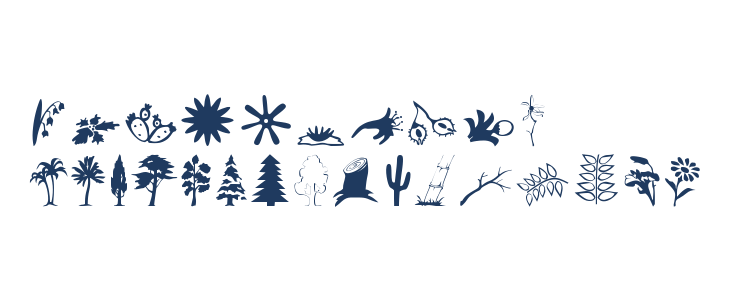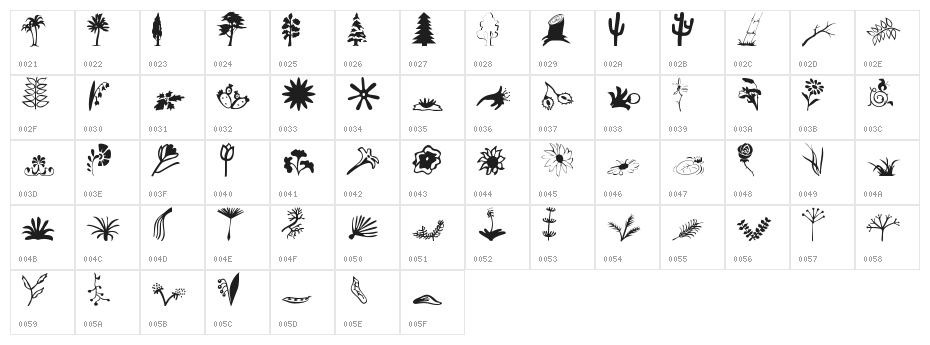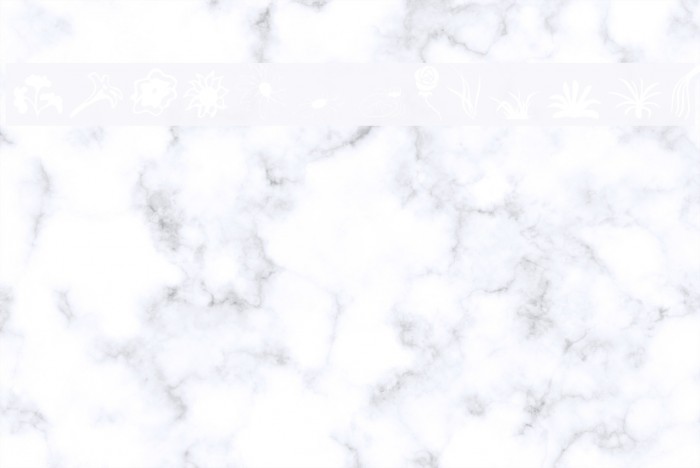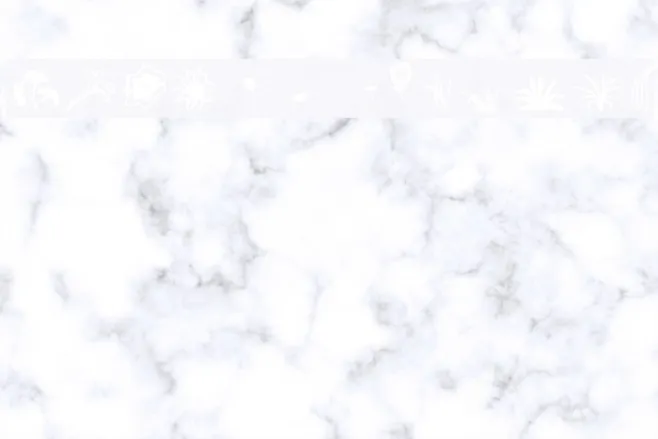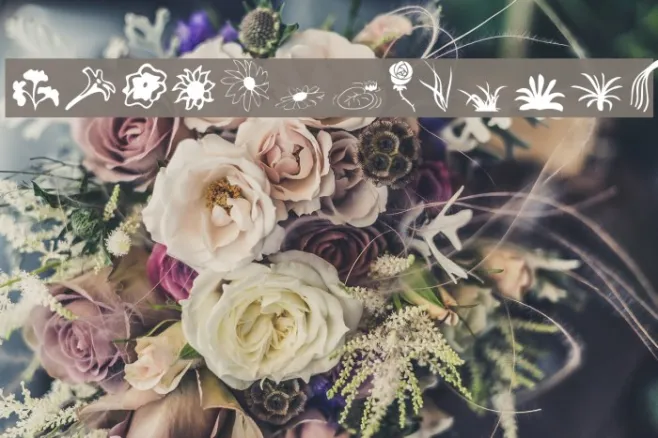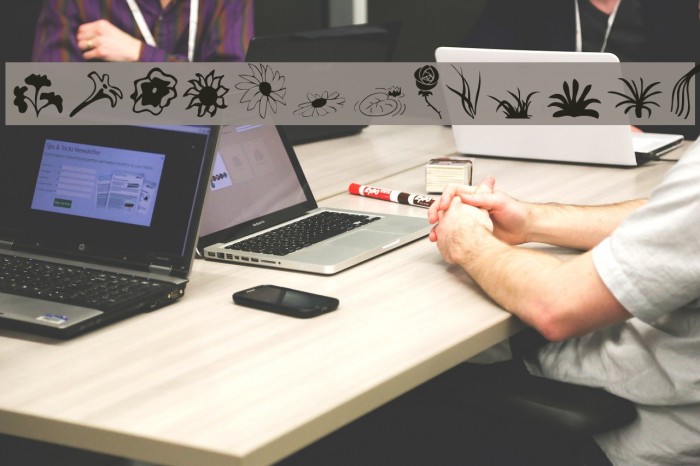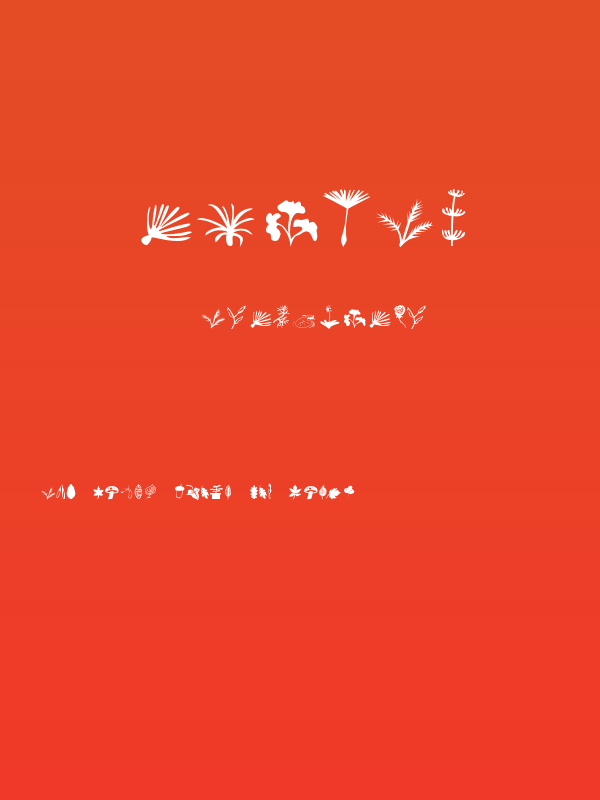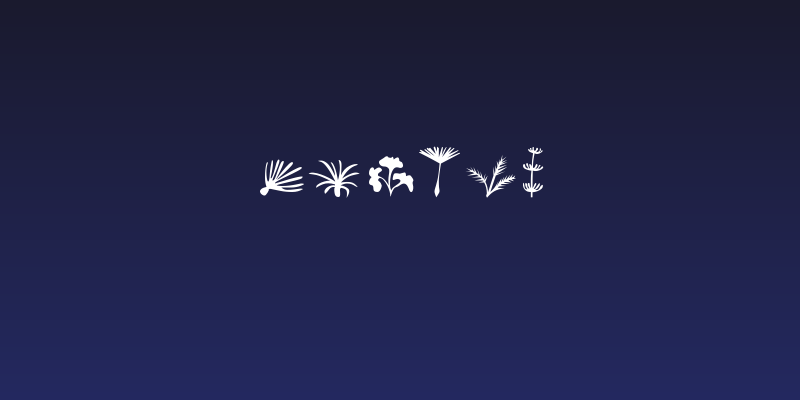
Plants Font
Plants Description
A decorative dingbat font featuring a wide variety of plant-themed silhouettes, including flowers, leaves, trees, mushrooms, potted plants, and botanical elements. The glyphs are rendered in solid black or outlined styles, with playful and organic shapes.
| Overall Style | Decorative, Playful, Organic |
| Use Case | Icons, Decorative elements, Themed graphics |
| Proposed Projects | Nature-themed invitations, eco-friendly branding, educational materials, scrapbooking, decorative borders, and garden signage. |